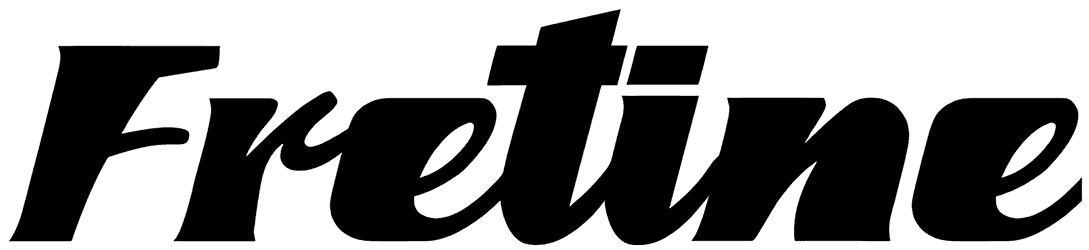
Fretine Font
Fretine font is a combination of nostalgia and speed. This steel and 80s font with connected characters can make you successful in any direction. We suggest you use this bold and geometric font in the logo design of car…
Fretine font is a combination of nostalgia and speed. This steel and 80s font with connected characters can make you successful in any direction. We suggest you use this bold and geometric font in the logo design of car brands, t-shirts, and many science fiction and space movies.
Thanks to its elegant lines and unique alternative characters, you’ll enjoy a great deal of creative freedom with this font. What’s best about it? It’s free to download.
this it is a it mixes of type serpentine and Freestyle….the mix jeje its my…